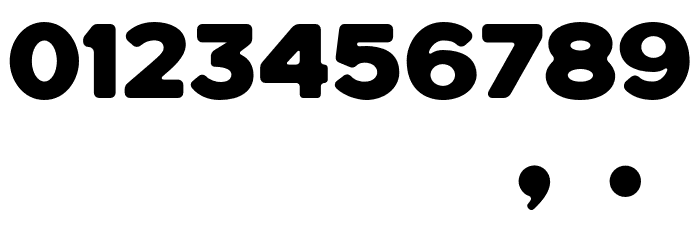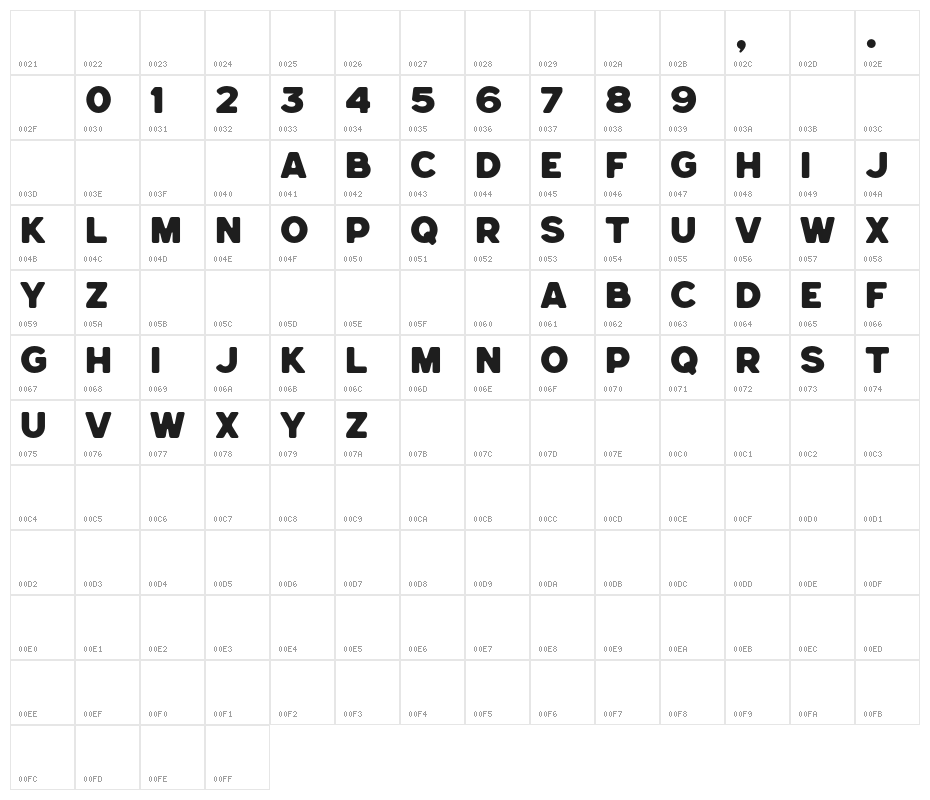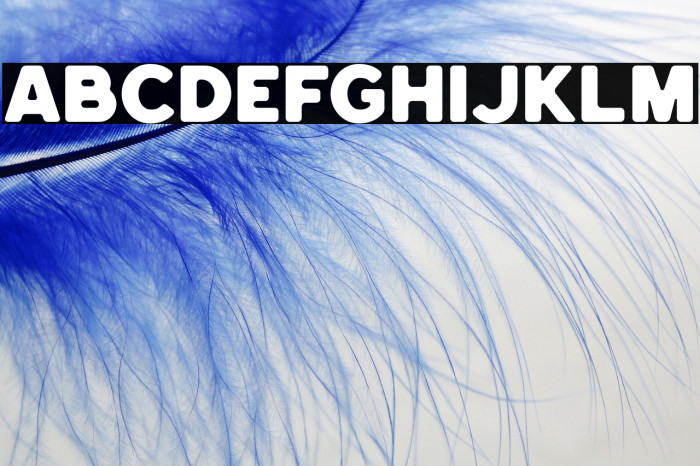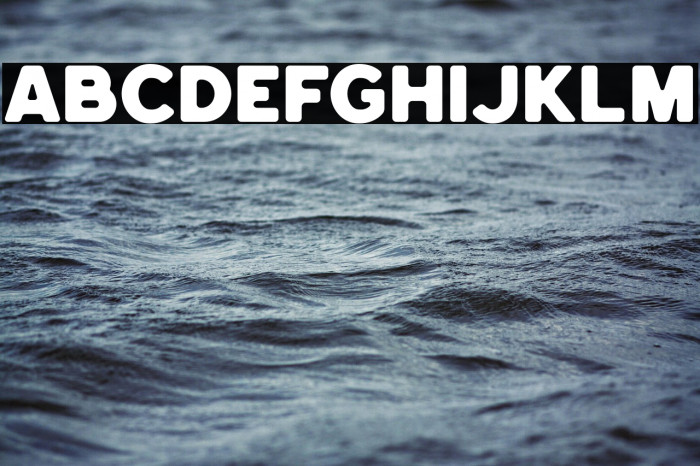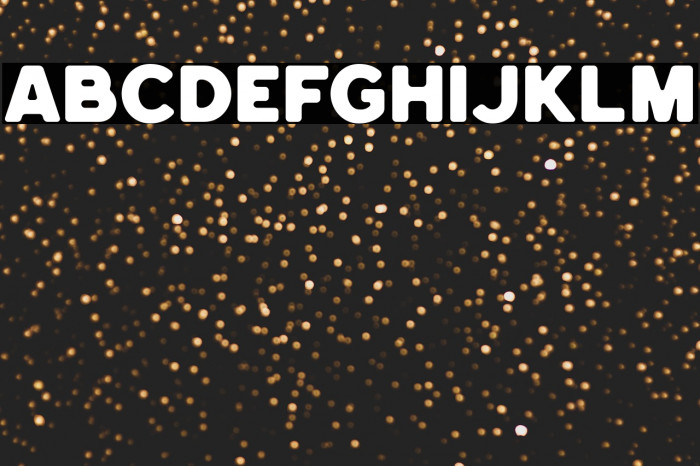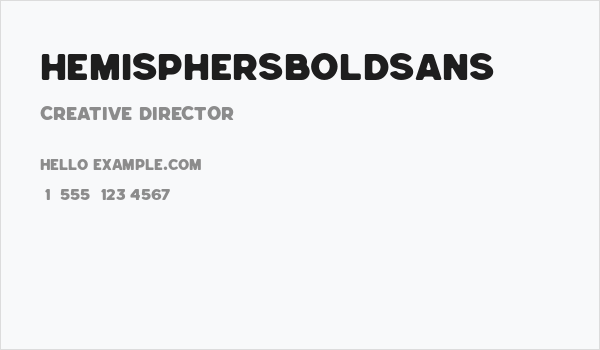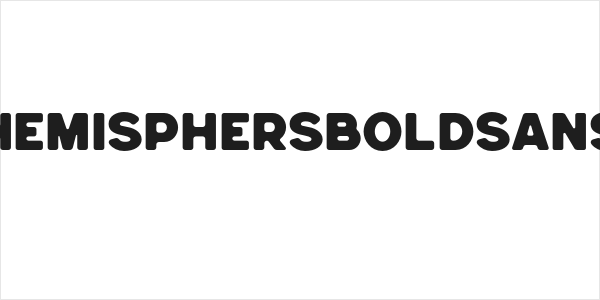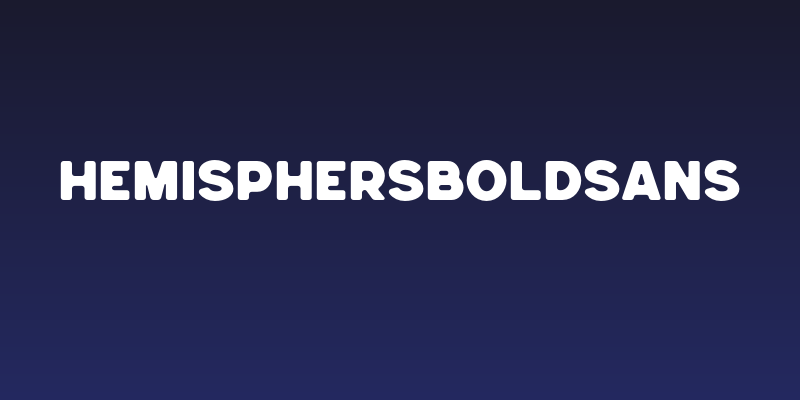
HemisphersBoldSans Font
HemisphersBoldSans Description
This font features bold, rounded characters with a strong presence, making it ideal for attention-grabbing designs. The uppercase and lowercase letters maintain a consistent weight, contributing to a cohesive look. The numbers are equally bold, ensuring readability and impact. The overall design is clean and modern, with a slight retro touch due to its rounded edges. This font is versatile, suitable for both digital and print media, and can be used to create a friendly and approachable aesthetic.
Proposed ProjectsIdeal for branding, headlines, posters, and packaging design.